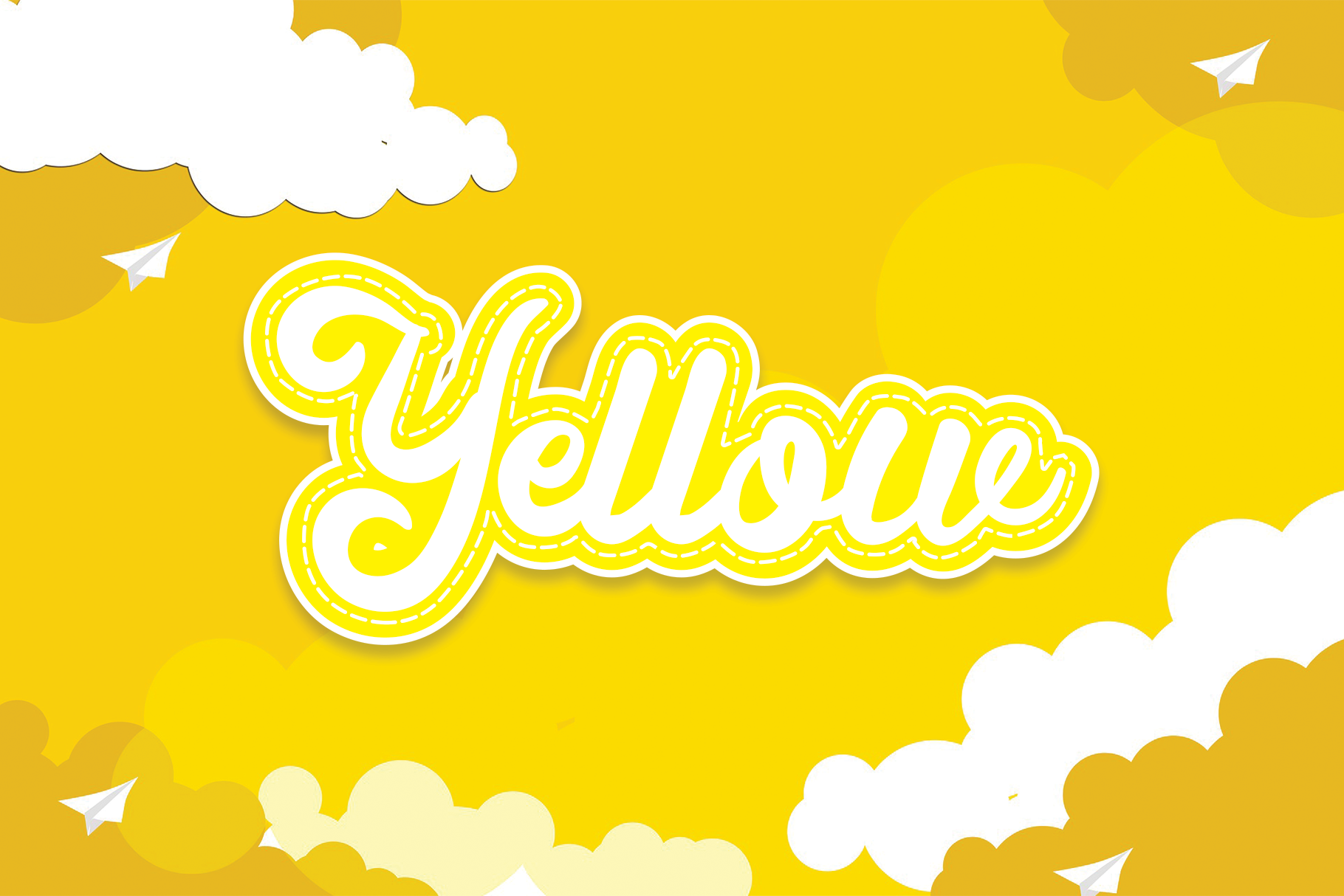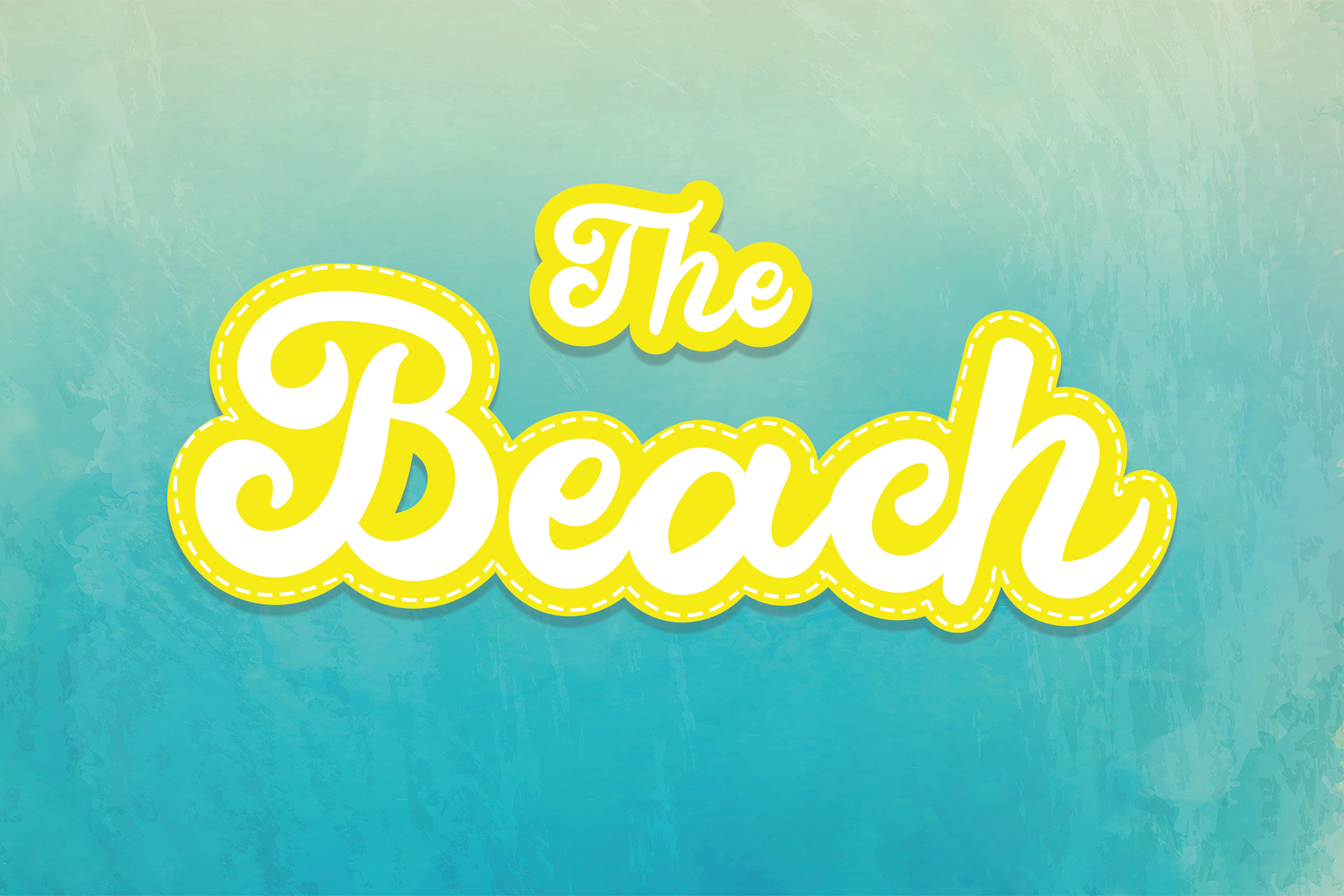
My Wedding Day Font
My Wedding Day Script Font
This is an incredibly unique and beautiful handwritten font, defined by a retro style. Fall in love with it and bring your projects to the highest levels!